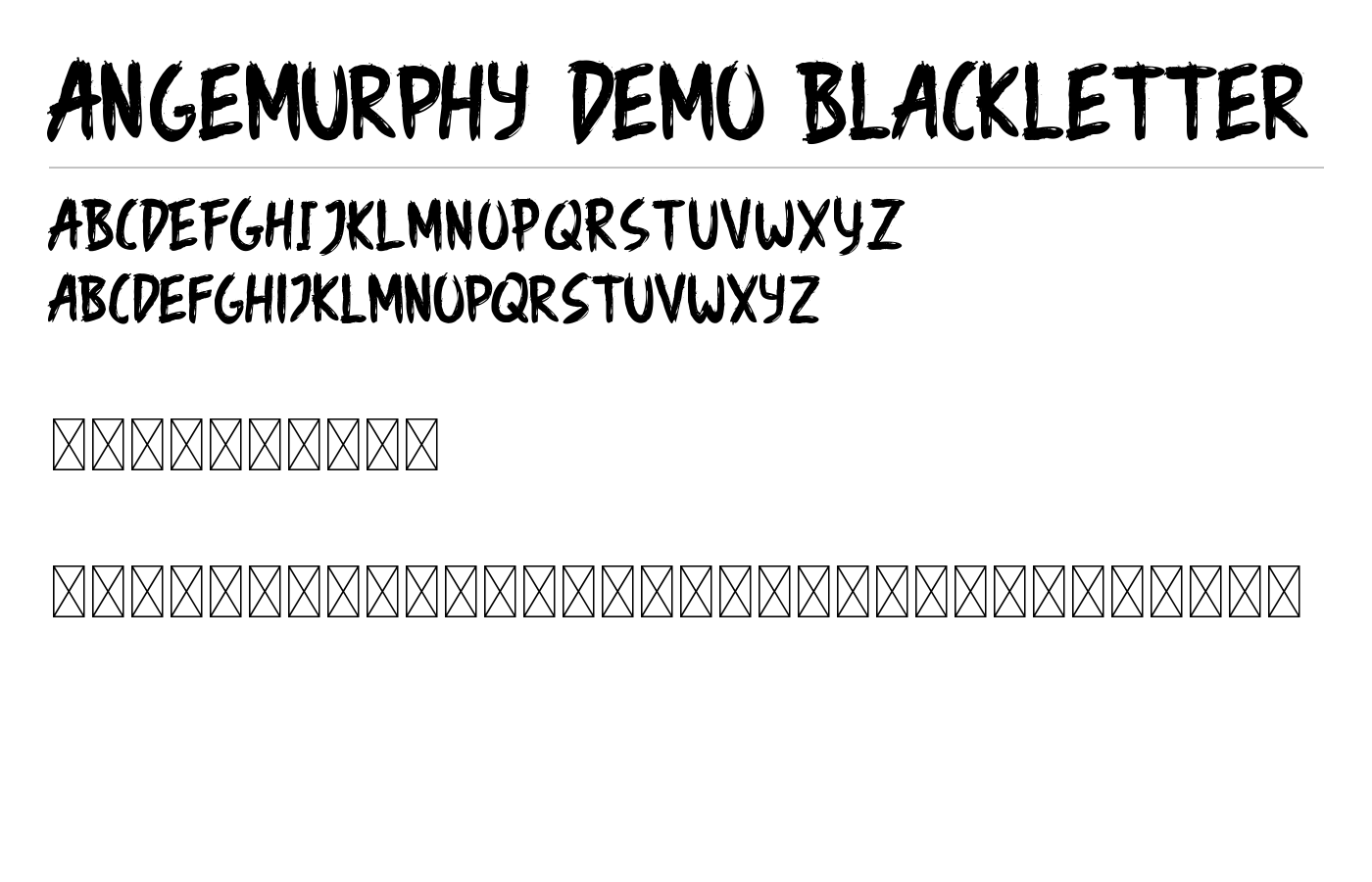
Angemurphy Demo is a bold, hand-drawn sans serif font with a textured, brush-stroke style that gives it a dynamic and casual feel. Its all-caps letterforms feature rough edges and varying stroke widths, making it ideal for creative, energetic designs that want to convey a handmade or expressive vibe. This font works well for logos, posters, and headlines where a bold, artistic impact is desired.
Angemurphy Demo Font
About Angemurphy Demo Font